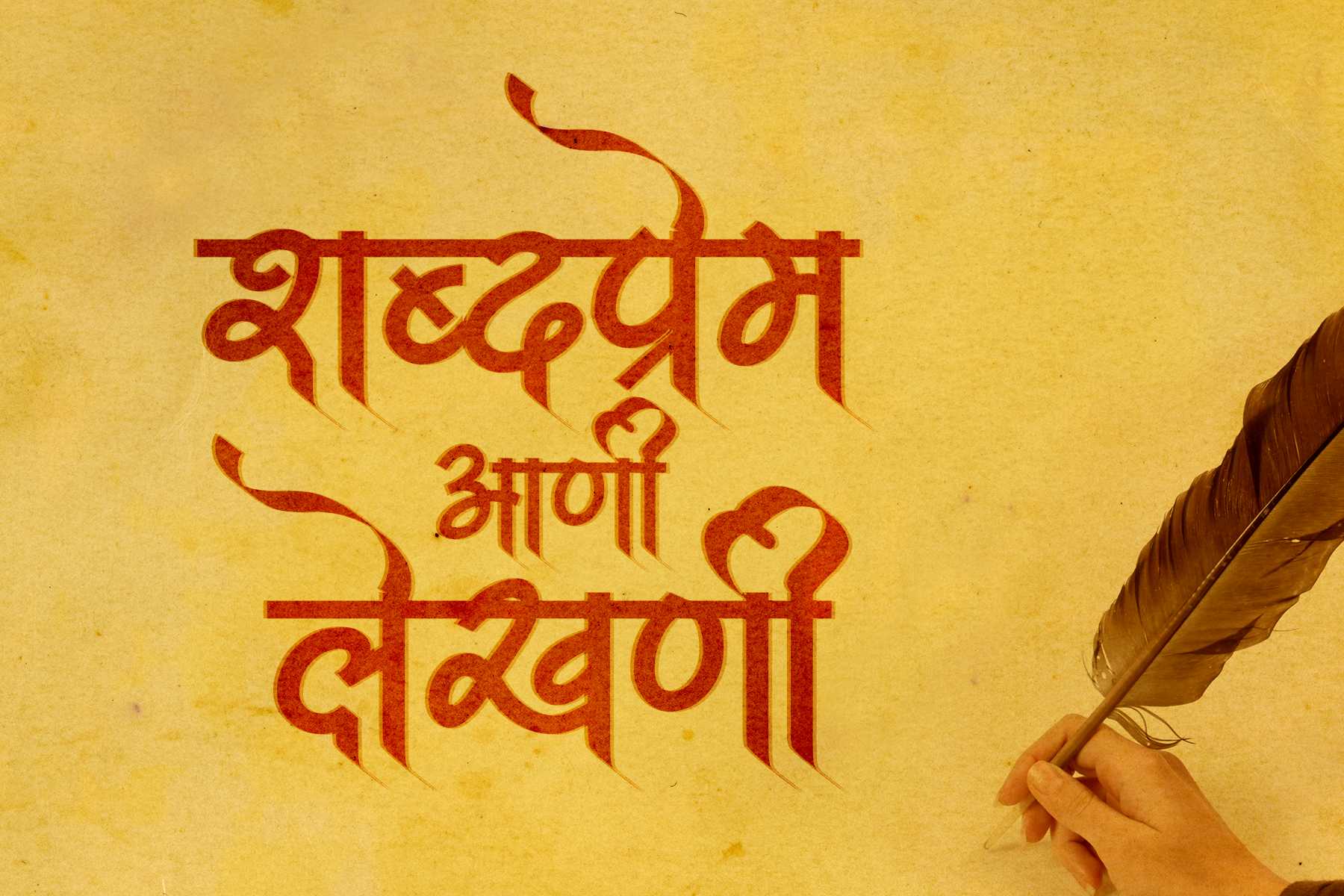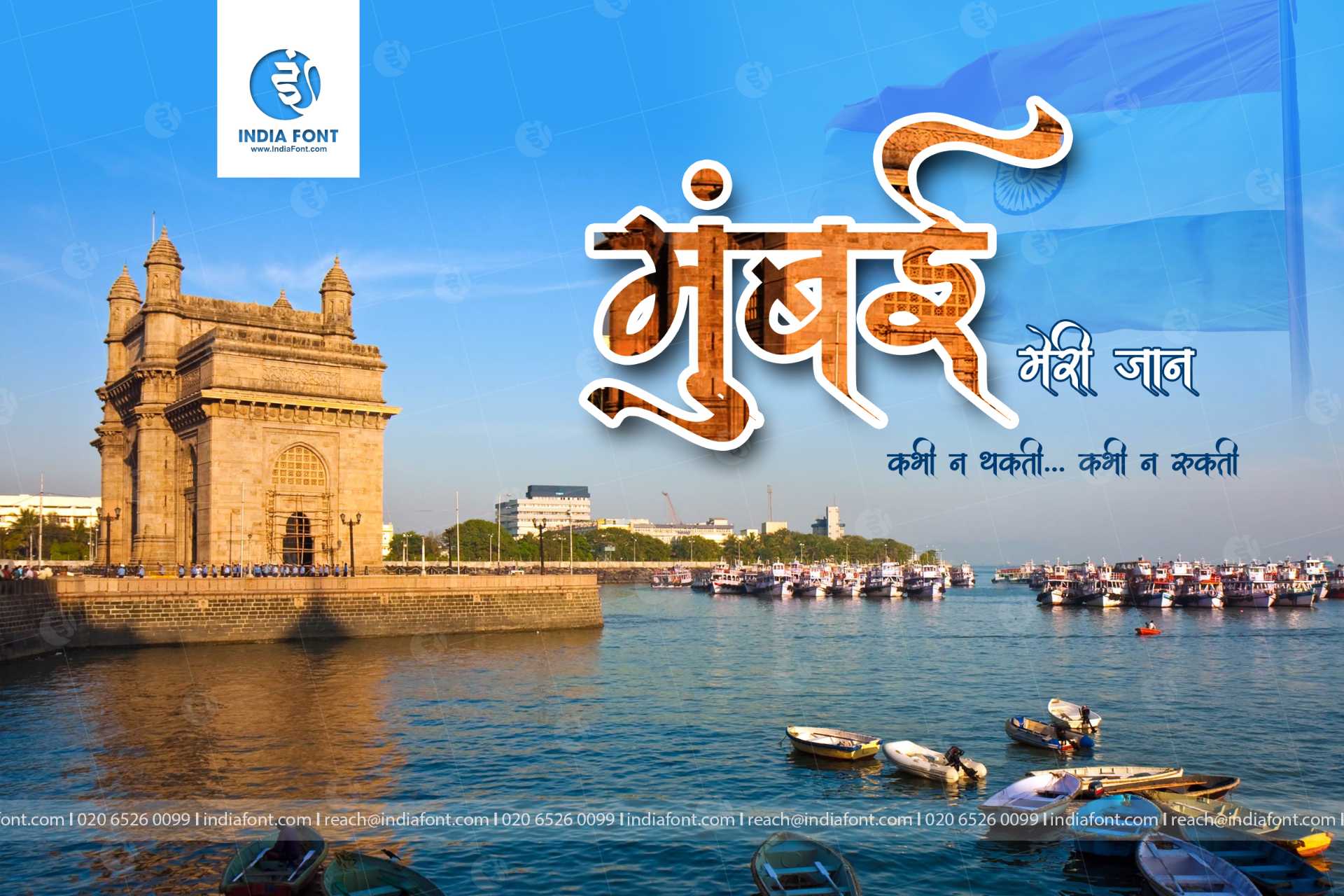
AMS Ganesha
Invoke the divine with AMS Ganesha Font, a Hindi and Marathi calligraphy font that exudes charm and spirituality. Whether you're seeking AMS Ganesha font download options or free AMS calligraphy fonts, AMS Ganesha will bring an aura of grace to your designs.
About AMS Ganesha Font
Invoke the divine with AMS Ganesha Font, a Hindi and Marathi calligraphy font that exudes charm and spirituality. Whether you're seeking AMS Ganesha font download options or free AMS calligraphy fonts, AMS Ganesha will bring an aura of grace to your designs. This calligraphy font combines elegance with functionality, making it perfect for various design applications.
AMS Ganesha is a professionally crafted calligraphy typeface that brings clarity and style to your projects. Designed with attention to detail, it supports hindi and marathi characters flawlessly.
Whether you're working on logos, posters, business-cards-stationery, or other creative projects, AMS Ganesha delivers consistent performance across both digital and print media. This carefully designed typeface ensures readability and visual appeal in all your design work.
About AMS Ganesha Typography Style
AMS Ganesha is a professionally crafted calligraphy font that exemplifies modern Hindi typography design. This free font is perfect for designers seeking professional branding and logo design projects.
Available in 1 weight and supporting hindi, marathi scripts, AMS Ganesha offers exceptional versatility for both digital and print media. Whether you're working on logos, posters, business-cards-stationery, this carefully designed typeface ensures consistent quality and professional results across all your typography projects.